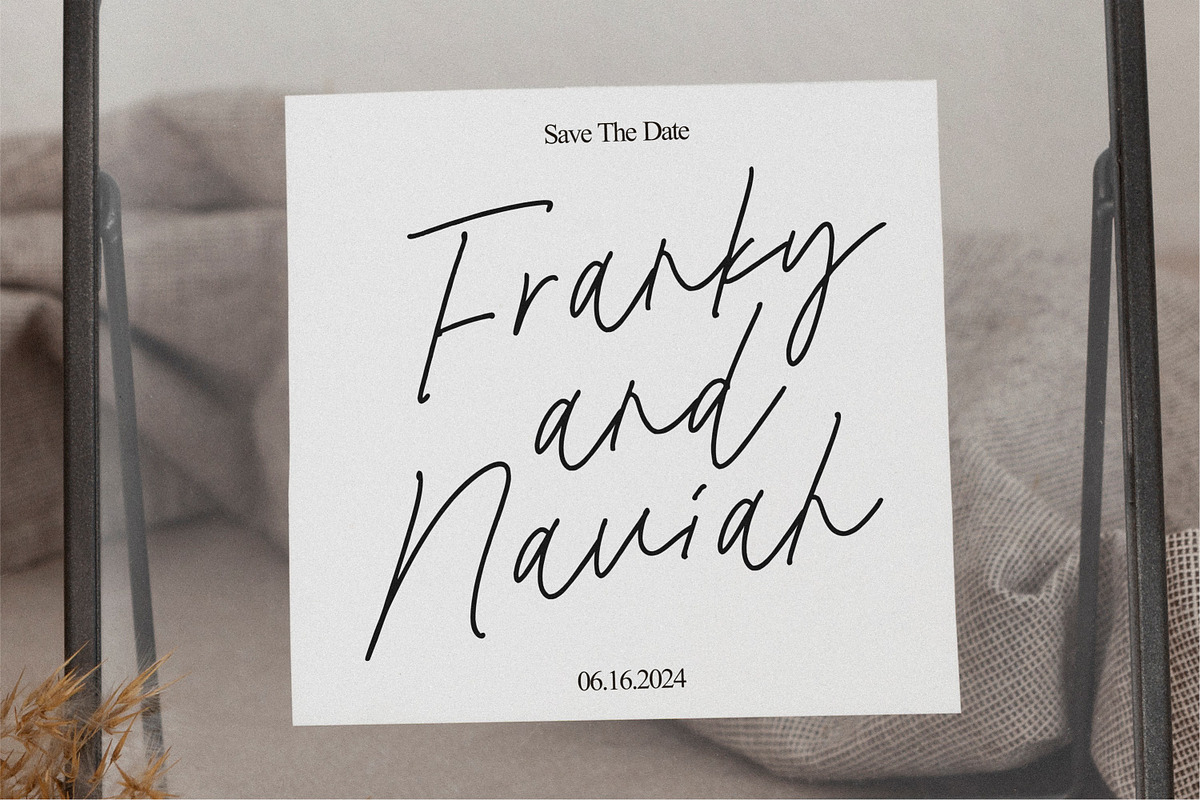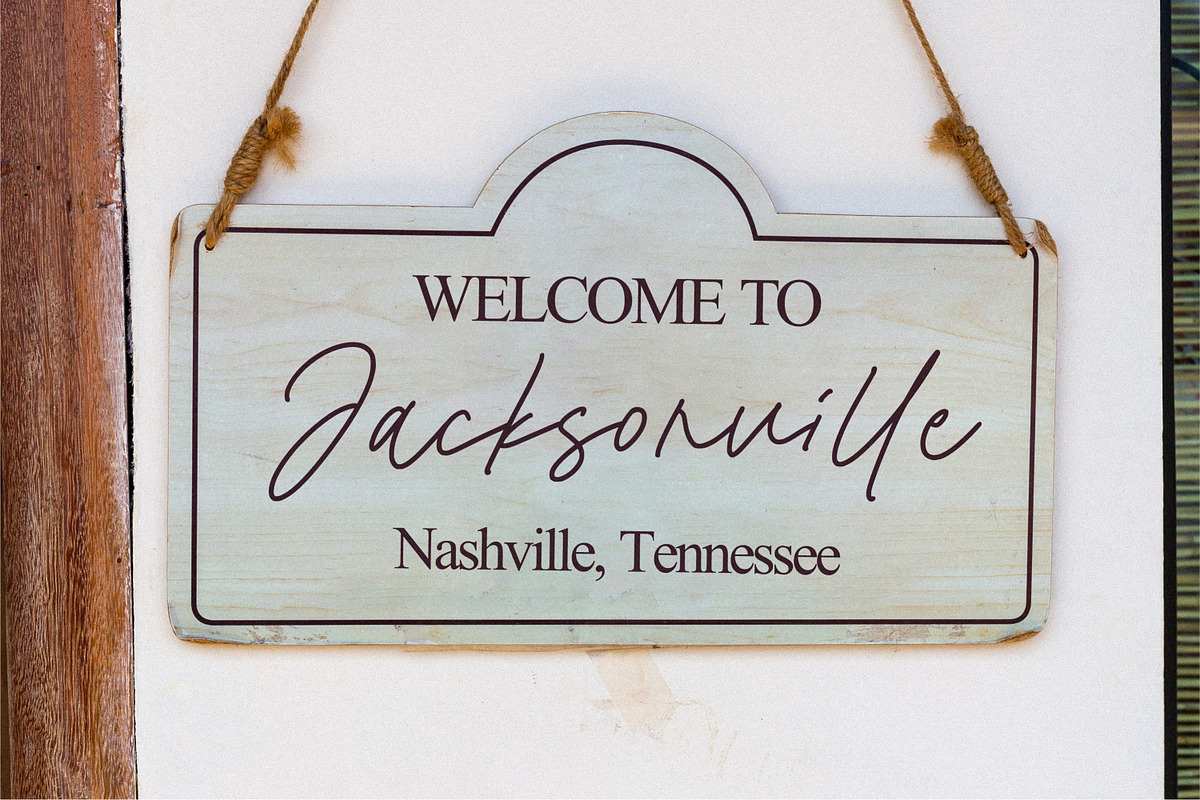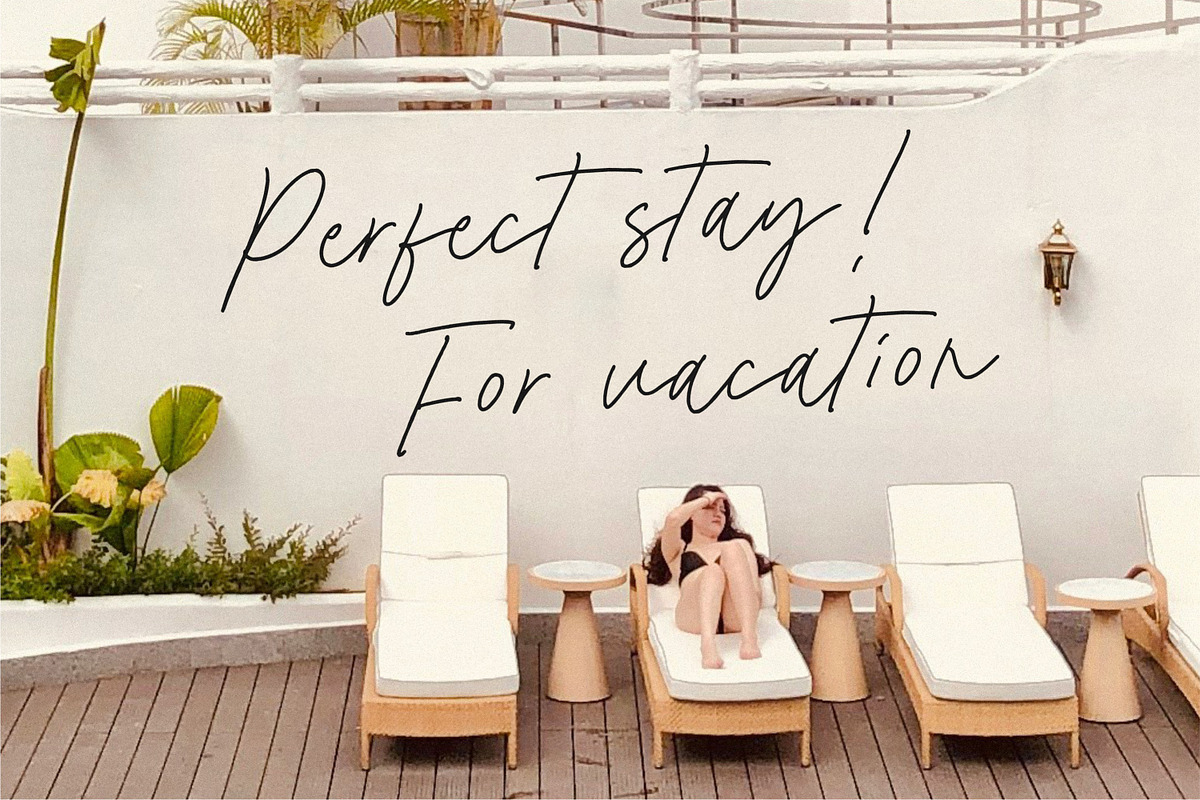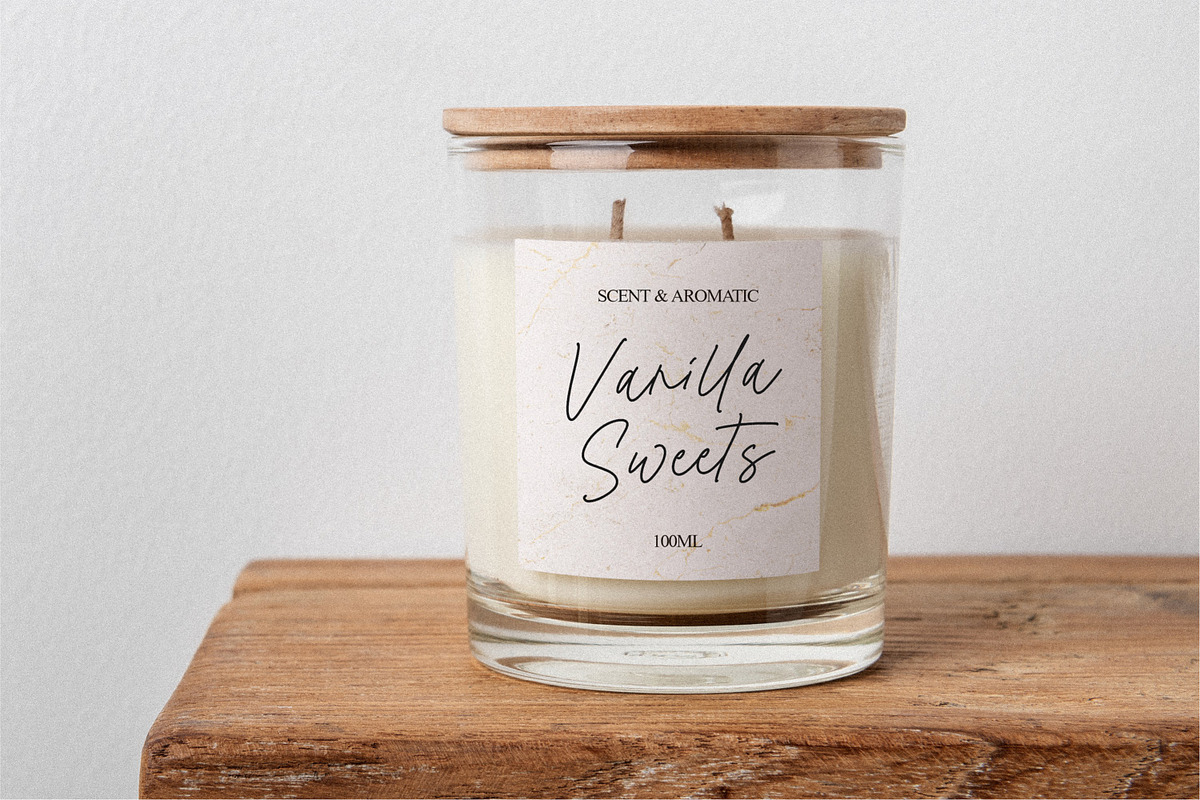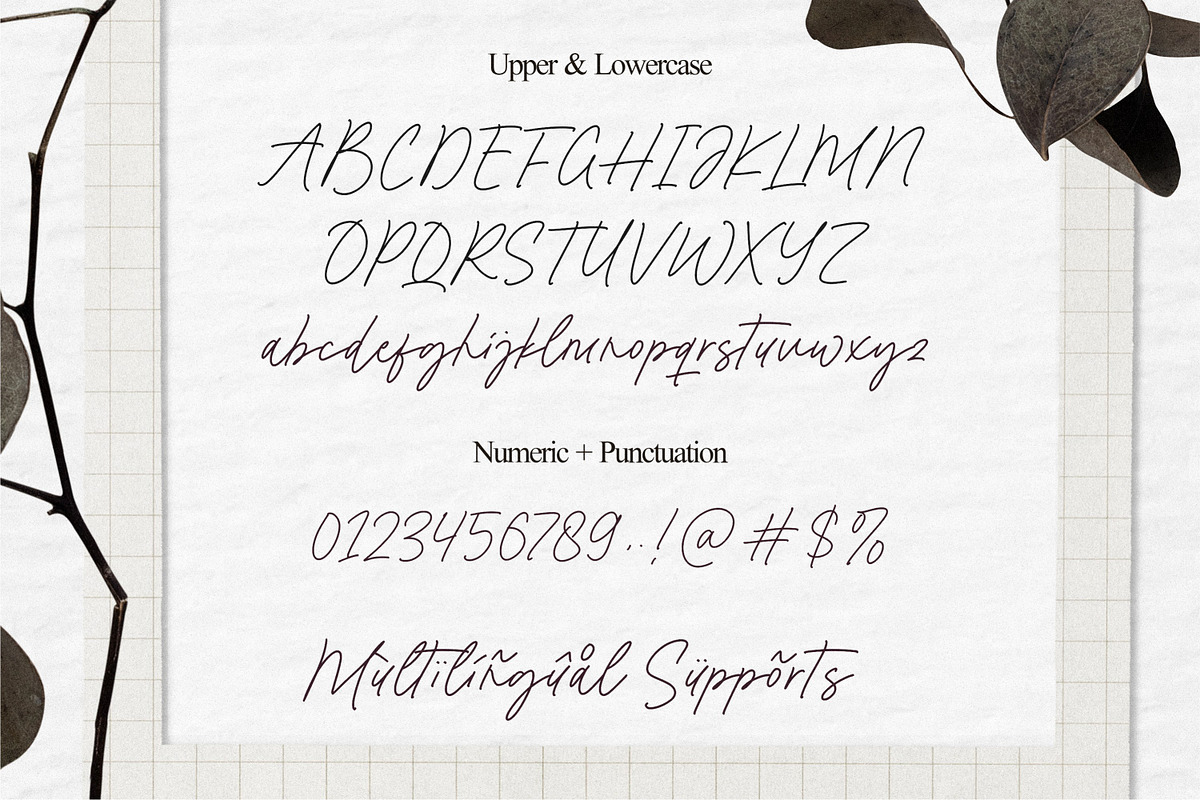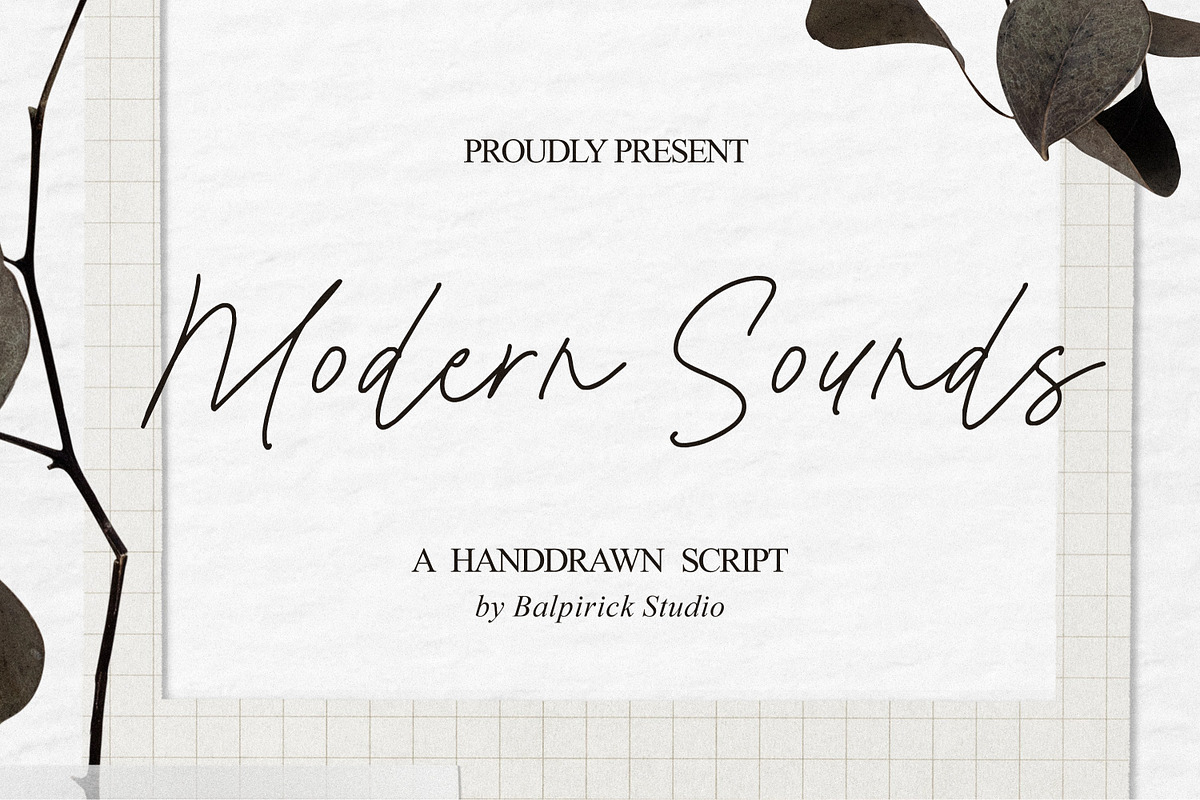
Modern Sounds Handdrawn Script
Modern Sounds is a Monloline Script Font
Dive into the world of contemporary design with Modern Sound, a stylish monoline script font that exudes a sleek and sophisticated vibe. With its seamless strokes and modern aesthetics, "Modern Sound" is the perfect choice for design projects that require a touch of minimalism and elegance.
- also multilingual support